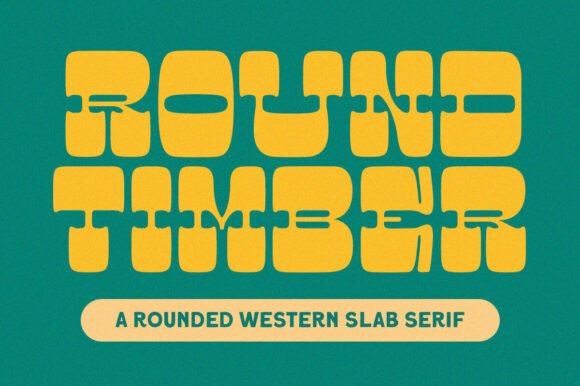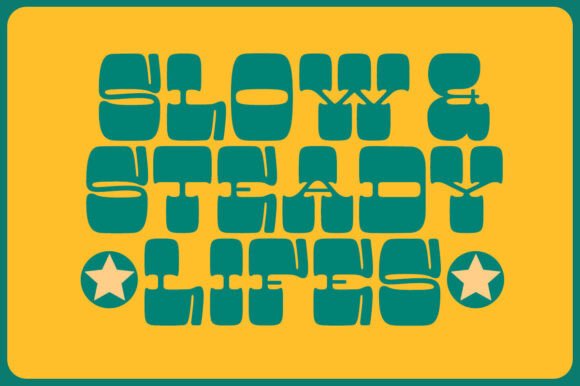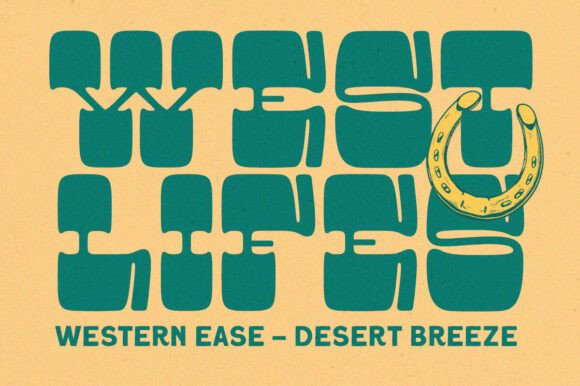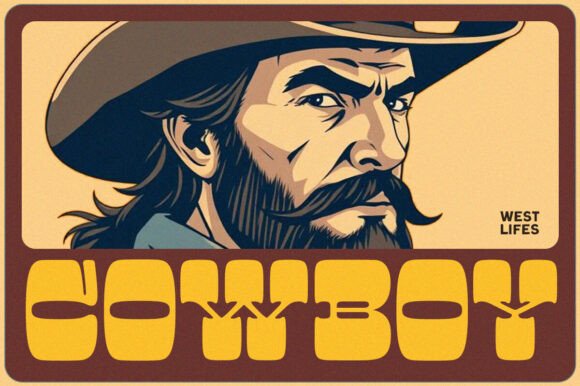
Round Timber Font
About the Round Timber Font
Explore the possibilities with Round Timber Font, a font that offers both beauty and functionality. Round Timber is a bold and playful display font that blends vintage western charm with a modern rounded twist. Featuring chunky slab serifs and smooth, curvy edges, this typeface brings a quirky, retro energy to your designs. It’s perfect for branding, packaging, posters, and anything that needs a strong yet friendly presence. Whether you’re working on a throwback design or a standout logo, Round Timber delivers personality with every letter.
Round Timber excels in headlines, logos, and short text blocks within posters and packaging designs. Its playful nature makes it ideal for brands targeting a younger demographic or those with a retro/vintage aesthetic. Avoid using it for body text or long paragraphs; its bold weight and unique letterforms can hinder readability in extended use.
Pairing Round Timber with a clean sans-serif like Open Sans or a more geometric font like Montserrat creates a balanced contrast, allowing the display font to shine while maintaining readability. For a slightly more vintage feel, consider pairing it with a complementary serif typeface such as Playfair Display. These pairings maintain the playful nature of Round Timber while enhancing the overall design’s professionalism.
The font’s overall personality is best described as bold, friendly, and retro. It’s a strong choice for brands conveying a sense of approachability and vintage charm, but less suitable for projects requiring sophistication or minimalism.
Round Timber Font Usage Examples
Round Timber Font Example